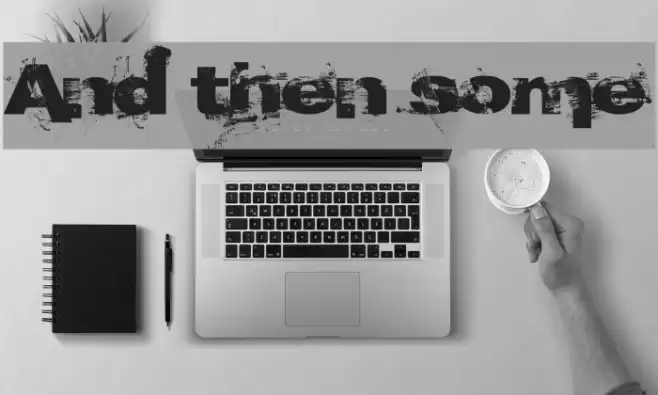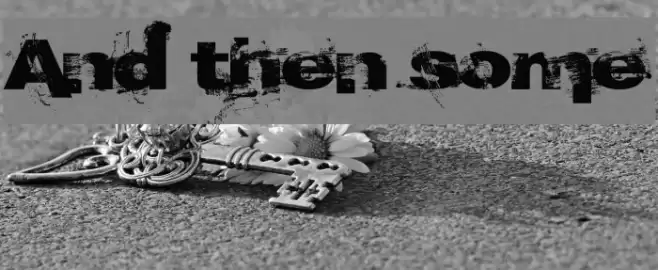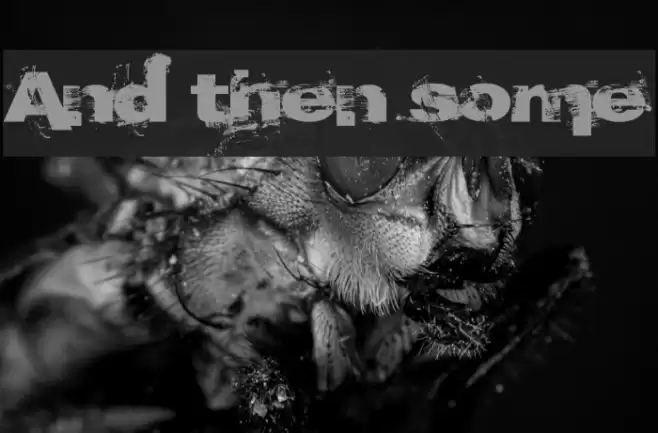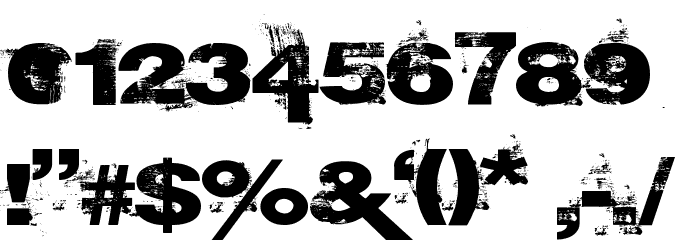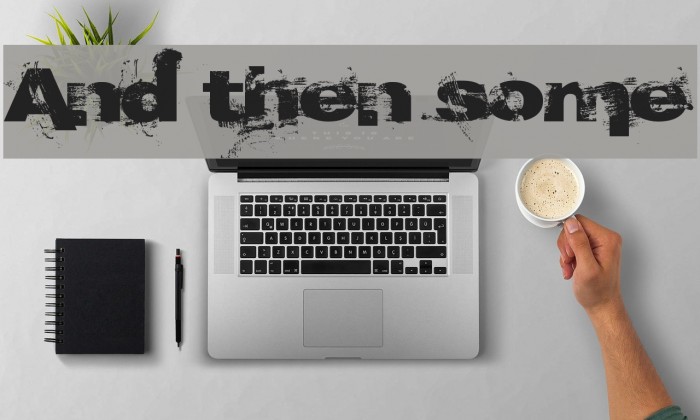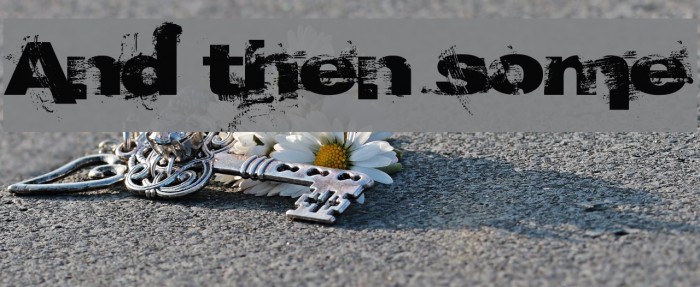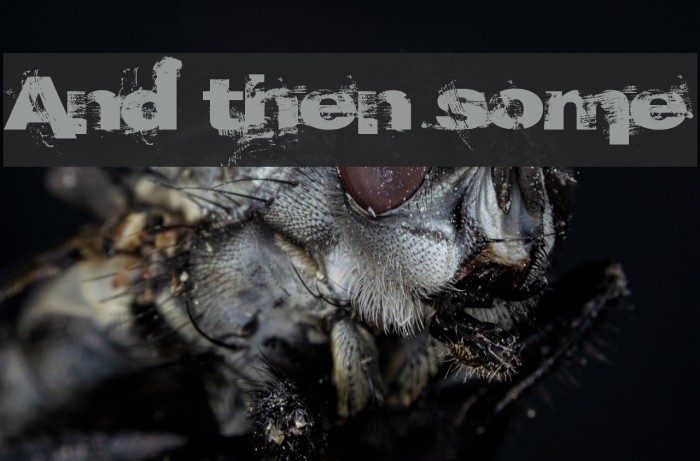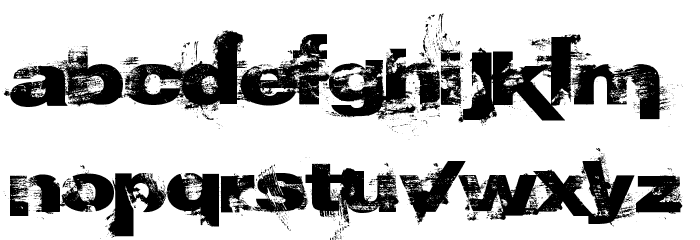
And then some Font
And then some Description
This font features a bold, distressed style with a grunge texture that gives it a rugged and worn appearance. The characters are bold and impactful, with a rough, uneven surface that suggests a sense of age and weathering. This texture adds a layer of complexity and visual interest, making it ideal for designs that require a raw, edgy aesthetic. The uppercase and lowercase letters maintain a consistent weight, while the numbers and special characters share the same distressed look, ensuring uniformity across all elements. The font's unique style makes it stand out, perfect for projects that aim to convey a sense of rebellion or nonconformity.
A bold, distressed font with a grunge texture, ideal for edgy designs from Distorted Eroded fonts.
- Proposed Projects: Album covers, posters, streetwear branding, and urban-themed graphics.
- Overall Style: Grunge, Edgy